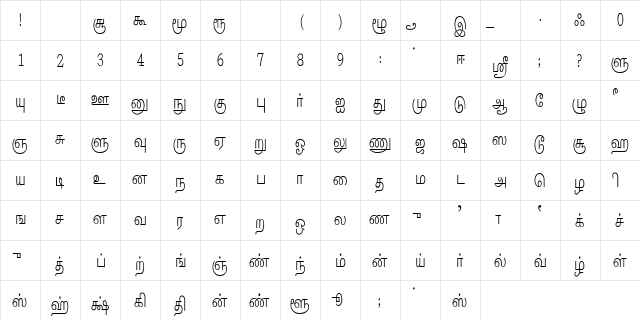
Pandian Regular
Design Context for Pandian Typeface
Pandian takes a measured approach to typography — its balanced proportions and neutral character make it a reliable workhorse for both digital and print work.